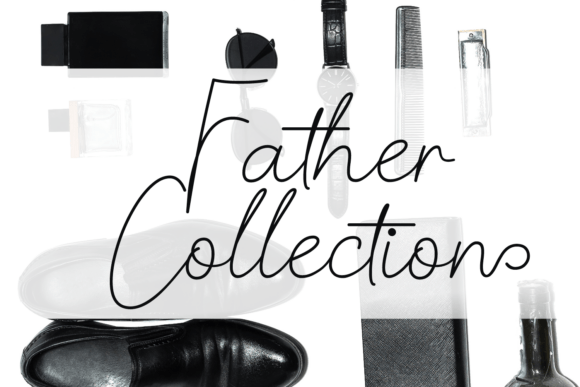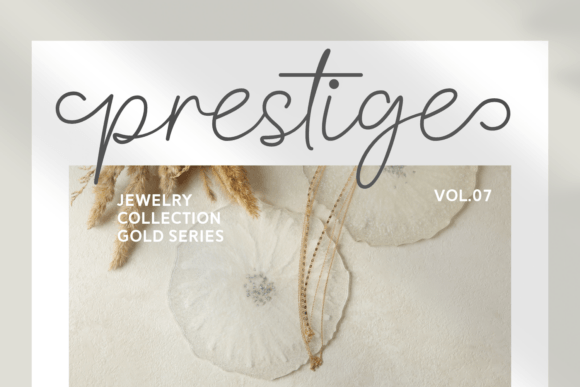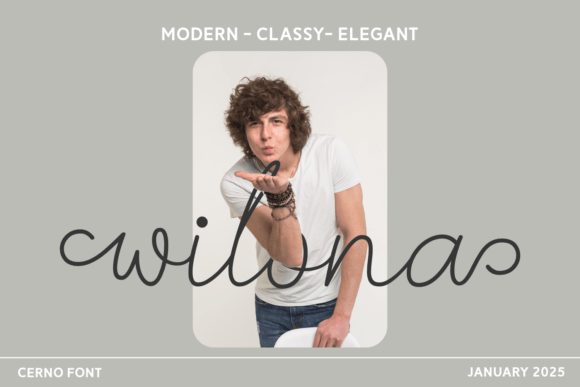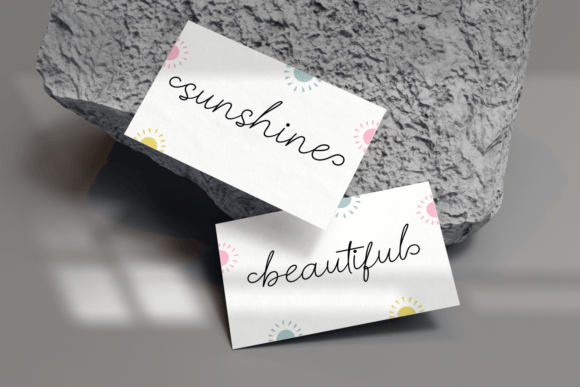
Cerno Font: The Epitome of Minimalist Elegance
In the realm of typography, few fonts manage to strike a balance between simplicity and sophistication as effectively as Cerno. This minimalist script font has been gaining traction among designers and crafters for its clean, flowing lines and versatile appeal. In this article, we’ll delve into the world of Cerno Font, exploring its characteristics, uses, and the unique value it brings to modern designs, branding, and creative projects.
The Essence of Cerno Font
Cerno is a masterclass in minimalist design. Its script font style is characterized by clean, unadorned lines that flow effortlessly across the page. This simplicity is not only visually appealing but also highly functional, making Cerno an excellent choice for a wide range of applications. Whether you’re working on a modern design project, crafting a brand identity, or simply looking for a elegant font for your creative endeavors, Cerno is an exceptional option.
Key Features of Cerno Font
- Clean and Simple Design: Cerno’s minimalist approach makes it perfect for designs that require a touch of elegance without overwhelming the senses.
- Flowing Lines: The font’s smooth, connected script style lends a sense of fluidity and dynamism to any project.
- Versatility: Cerno’s neutral aesthetic allows it to seamlessly integrate into various design contexts, from modern branding to digital media.
- Elegance: The font’s subtle sophistication makes it an ideal choice for projects that demand a high level of refinement.
Applications of Cerno Font
Cerno’s versatility is one of its most compelling attributes. Here are some of the many ways designers and crafters can utilize this exceptional font:
- Branding: Cerno is perfect for creating a sophisticated brand identity. Its clean lines and elegant flow make it suitable for logos, business cards, and other marketing materials.
- Web Design: The font’s readability and modern aesthetic make it an excellent choice for web design. Use Cerno to create stunning website headers, titles, and other typographic elements.
- Graphic Design: Cerno’s minimalist style lends itself well to a variety of graphic design applications, including brochures, posters, and social media graphics.
- Crafting and DIY Projects: For crafters and DIY enthusiasts, Cerno can add a touch of elegance to handmade cards, invitations, and other paper crafts.
Why Choose Cerno Font?
In a sea of fonts, Cerno stands out for its unique blend of simplicity and sophistication. Here are a few reasons why designers and crafters are increasingly drawn to this minimalist script font:
- Timeless Appeal: Cerno’s classic, elegant design ensures that it will remain relevant for years to come, making it a valuable addition to any design library.
- Easy to Pair: The font’s neutral aesthetic makes it easy to pair with other fonts, allowing designers to create harmonious and visually appealing typographic combinations.
- Highly Legible: Despite its elegant appearance, Cerno is highly legible, even at smaller font sizes, making it suitable for a wide range of applications.
Cerno Font is a shining example of minimalist design done right. Its clean, flowing lines and elegant aesthetic make it an exceptional choice for designers and crafters seeking to add a touch of sophistication to their projects. Whether you’re working on a modern design, crafting a brand identity, or simply looking for a beautiful font for your creative endeavors, Cerno is sure to impress. With its timeless appeal, versatility, and high legibility, Cerno Font is an invaluable addition to any design library.
So, if you’re looking to elevate your designs with a font that embodies simplicity and elegance, look no further than Cerno. Its unique blend of style and functionality makes it the perfect choice for anyone seeking to create stunning, professional-grade designs that stand out from the crowd.